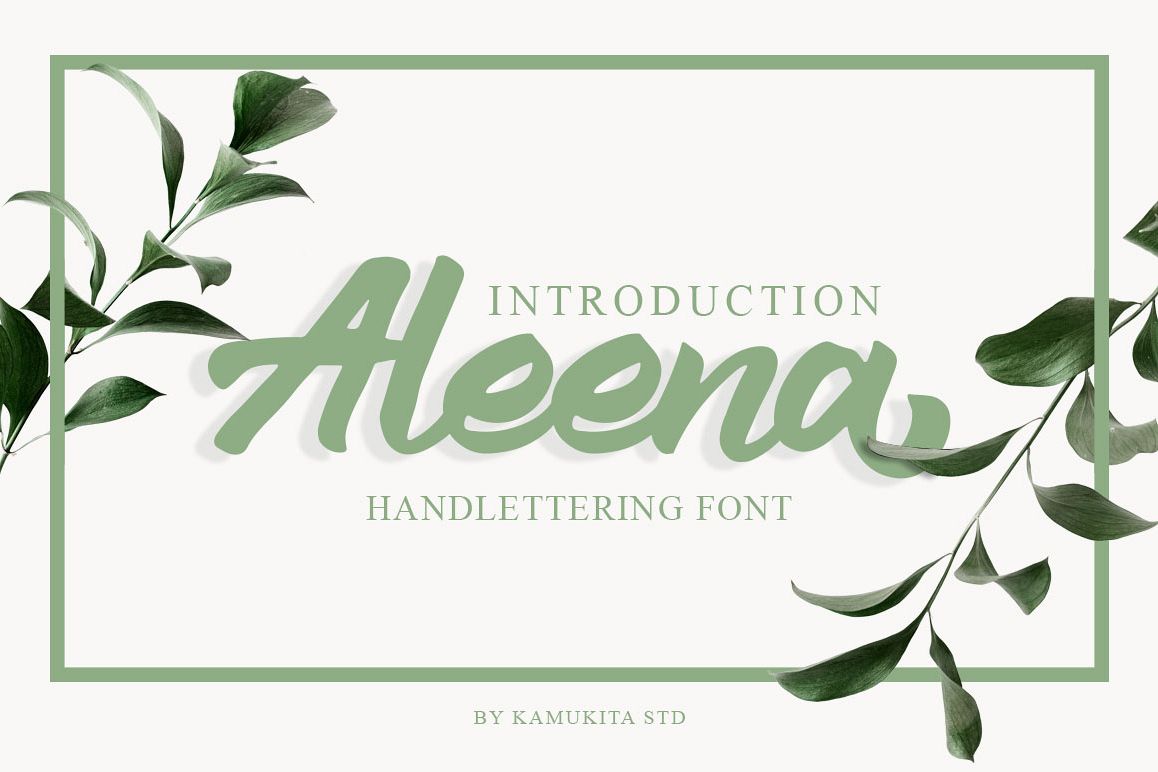
Aleena Handlettering Font
Introducing, Aleena is amazing handlettering font that will make your designs stand out!
Aleena is perfect for branding projects, logo, book cover design, tshirt designs, social media posts, advertisements, product packaging, product designs, label, watermark, invitation, stationery and any projects.